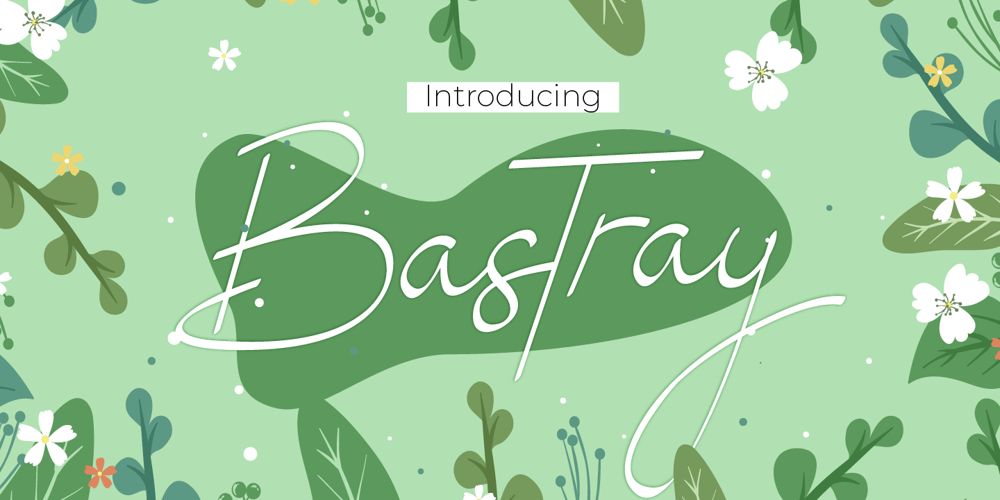
Bastray Font Family was designed by Mohamad Candirah and published by MC Creative. Bastray contains 1 styles and family package options. Bastray is a font with a modern script look and energetic. With extra attention to quick strokes and sharp details, is ready and perfectly fit for your logo designs, music projects & social media posts, event poster, brand imagery, product packaging, handwritten quotes, merchandise, etc.Suitable for use in title design such as clothing, invitations, tittle books, stationery designs, quotes, branding, logos, greeting cards, t-shirts, packaging designs, posters and more.you can already choose the style you want to use for your design.